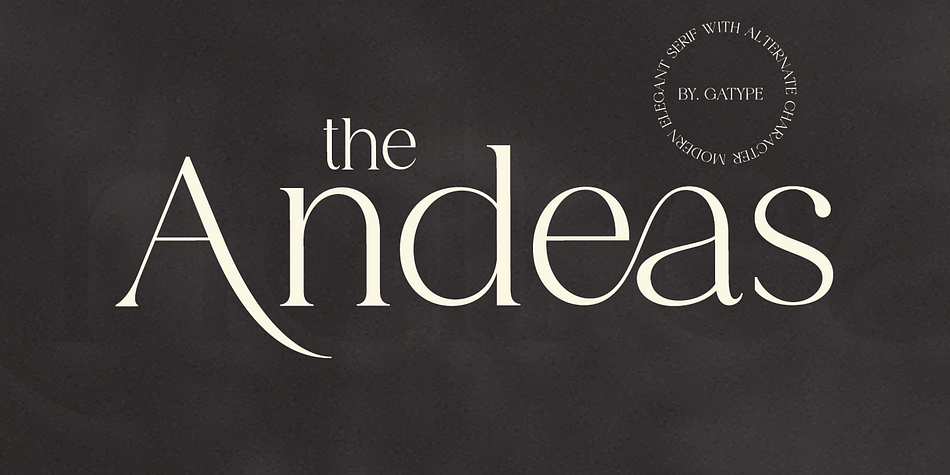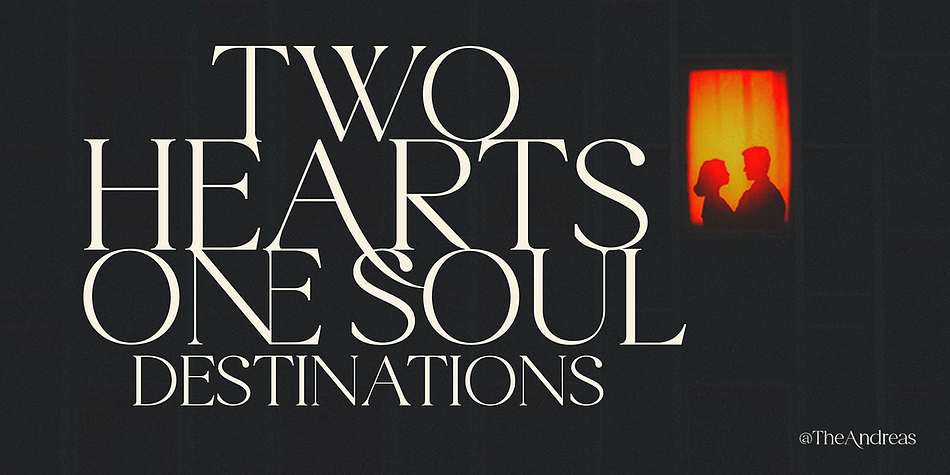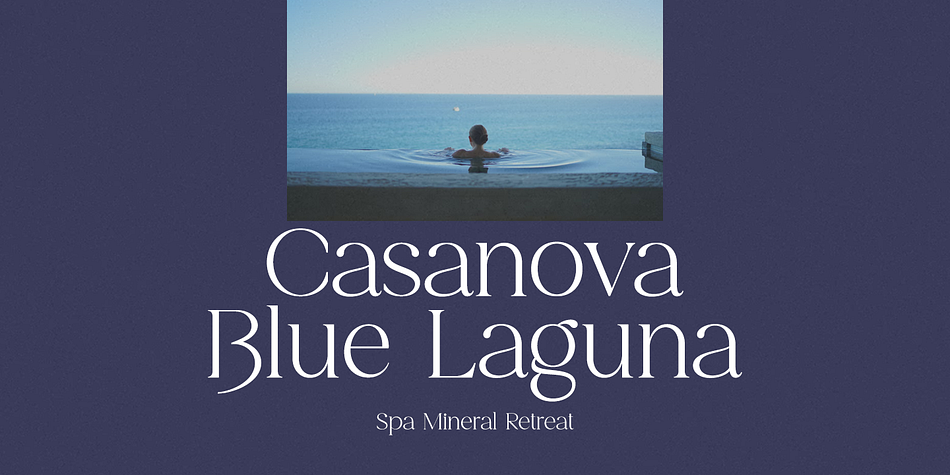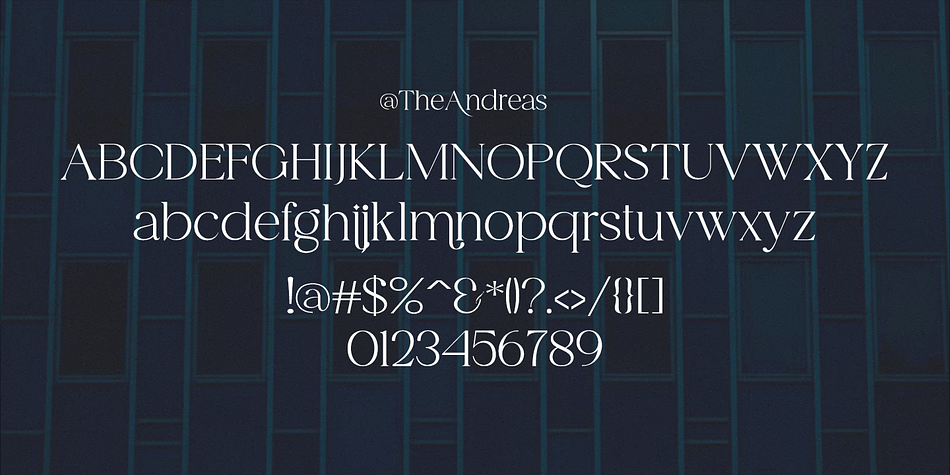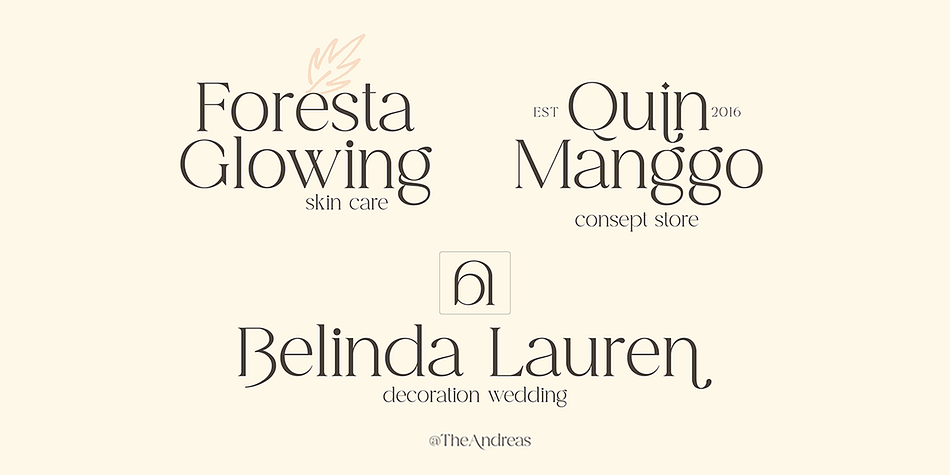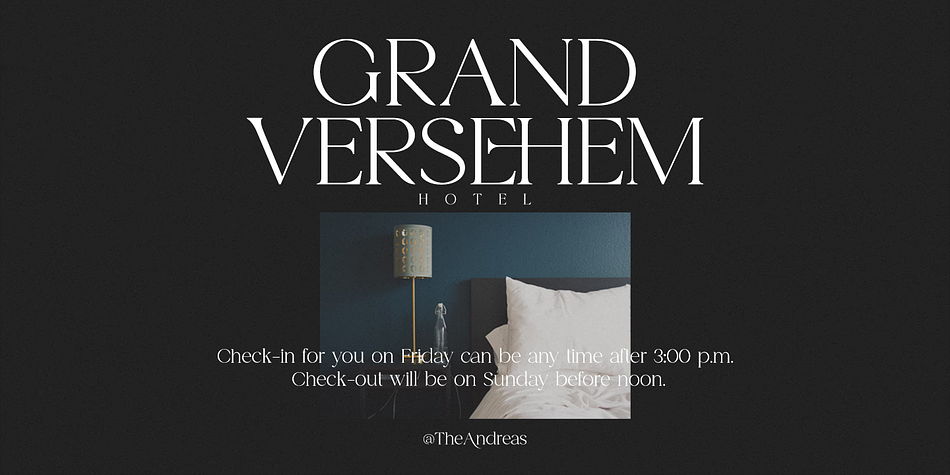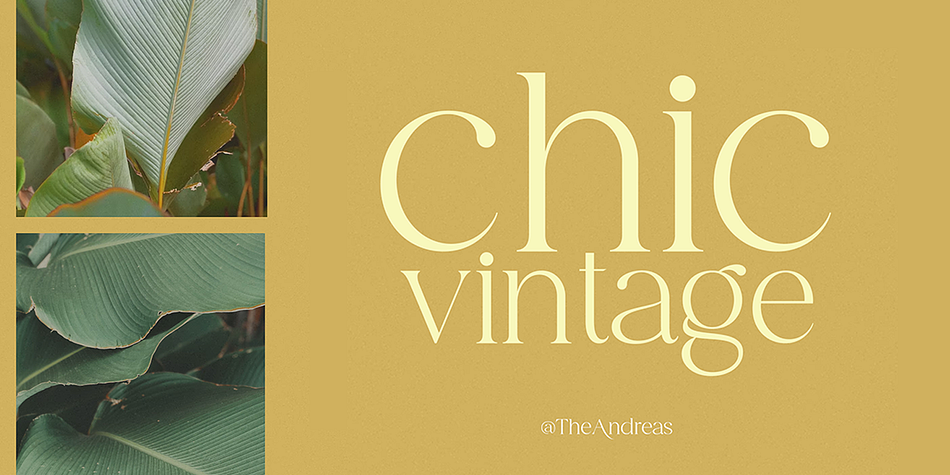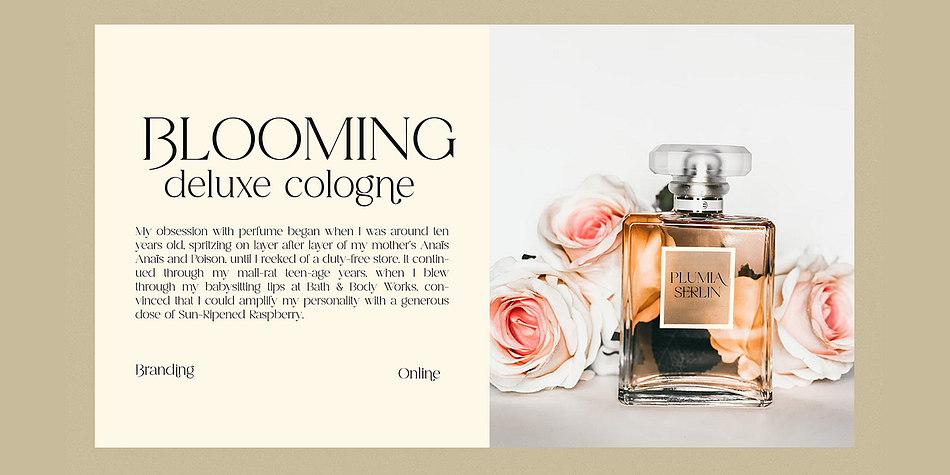
The Andreas
The Andreas is a display serif font family published by Gatype.
The Andreas font is perfect for branding, poster design, t-shirts, invitations, designs for kids, and editorial design. It comes with over 400 glyphs, including ligatures. OpenType features include style sets, character variants, starting and ending forms, and multilingual support.